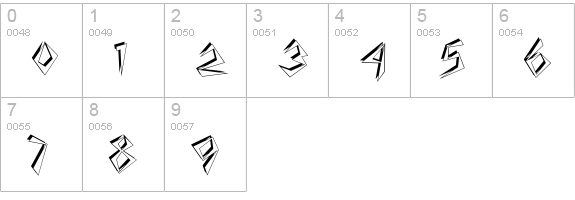
Merchan Font Details
Merchan font is a modern and stylish typeface that is perfect for a wide range of design projects. Its sleek lines and contemporary appeal make it a versatile choice for both digital and print applications. This font boasts a unique blend of elegance and readability, making it suitable for anything from logos to headings to body text. What sets Merchan font apart is that it is completely free to download. Yes, you read that right - this high-quality typeface can be yours at no cost! Simply head to FontsMarket.com to access this amazing font and elevate your designs with its professional look and feel. Don't miss out on this fantastic opportunity to enhance your projects with Merchan font today!